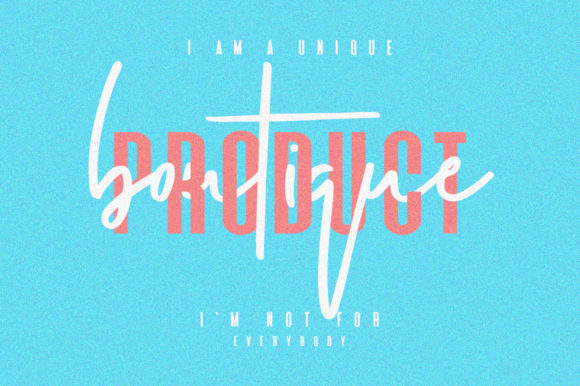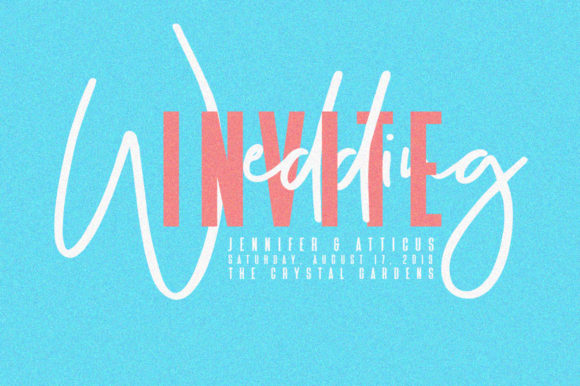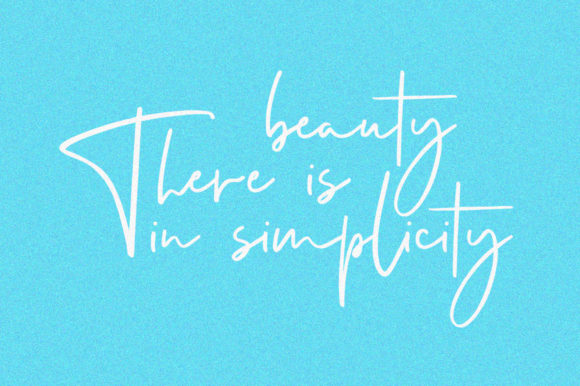
Introduction to Nyquist Duo Font
Remember that moment when you’re brainstorming ideas for a new project, and the perfect font pops into your mind, instantly elevating the entire concept? For many designers, this is the sweet spot where creativity meets inspiration. It’s where the right font can make all the difference between a good design and a great one.
Enter the Nyquist Duo Font, a stunning pair of fonts that’s sure to bring a touch of summer magic to your next creative project. With its light and airy feel, this font duo is the perfect addition to any design resource, offering a high-quality, free download that’s ready to use.
Whether you’re working on a personal project or a client’s design, the Nyquist Duo Font is a valuable asset that’s sure to bring a unique touch to your work. Its transparent background and effortless style make it a versatile choice for designers looking to add a cool vibe to their designs.
Key Features of Nyquist Duo Font
- High-quality, professional font suitable for creative projects and design resources.
- Unique, modern design with a transparent background, allowing for versatility in creative projects.
- Includes two font styles: Nyquist Duo Regular and Nyquist Duo Italic, providing a range of design options.
- Perfect for designers working on creative projects, including logos, branding, and typography-based art.
Honest Review: Nyquist Duo Font
- ✨ High-quality design: The Nyquist Duo Font boasts clean, modern lines and a versatile aesthetic that can be used in a variety of creative projects.
- ✨ Transparent background: The font’s transparent background makes it easy to customize and integrate into any design project.
- ⚠️ Limited font sizes: While the font is available in a range of weights, the selection of font sizes is somewhat limited, which may not be ideal for complex design projects.
- ⚠️ Not suitable for print: The font’s design may not be ideal for print projects, as the transparent background may not translate well to physical media.
Tips for Getting the Most Out of Nyquist Duo Font
For the best results, use the Nyquist Duo Font in combination with other design elements to create a cohesive and visually appealing design. Experiment with different font sizes, colors, and styles to find the perfect balance for your creative project.